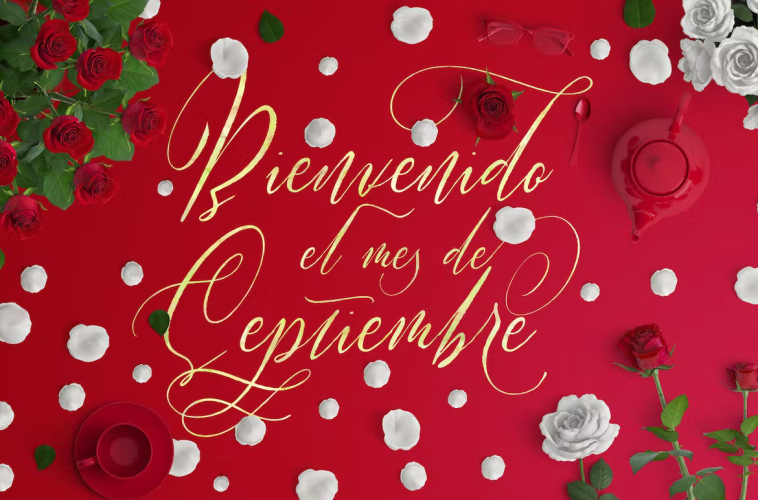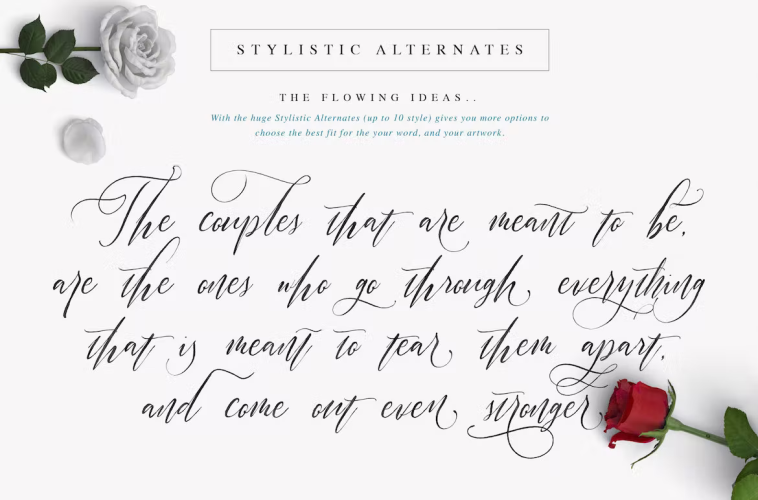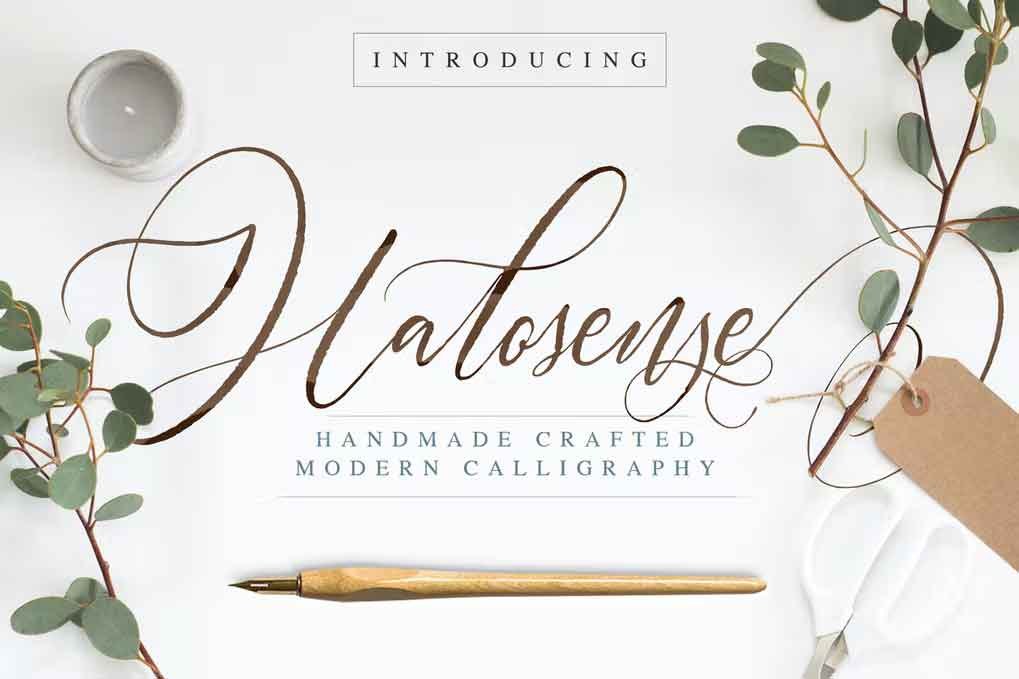
Halosense Script Font
Introducing Halosense Handmade Crafted Modern Calligraphy
Referring from the product before called Octavia Script, this new modern calligraphy is more natural feel, handmade created with small touch of digital to make them flowing like a water on the river.
This fonts generating more features like CALT (Contextual Alternates), DLIG (discretionary ligatures), SS (Stylistic Set), INIT & FINA *(initial and terminal) *.
Lowercase : when the letter meets the same letter (aa,bb,cc,etc) there will not having same letter. it will look different a little bit, the function is for make you get the natural feel of hand typing.
Uppercase : Comes with 2 stylistic alternates to give you the option.
Alternate Characters : It’s over than 10 stylistic in some letter, and some alternates which is usable for word.
Swash at first & last : Refined the first & last letter with 7 options, look at display no 5 for the example. and for use, you can use it in type tester below. for the first swash using double underscore + number 1-7 , and for the last swash using double plus + 1-7. To try this method just copy and paste this word = __1beautiful++1 , or __7butterflies++7 . Follow the guide on display no 6.
Halosense Script Font brings a personal, handwritten warmth to invitations, menus and place cards.
Craft brands — coffee, cosmetics, bakery — use scripts like Halosense Script Font for signature-style logos and labels.
Pair Halosense Script Font with a plain sans for quotes, stories and Pinterest pins that feel handmade.